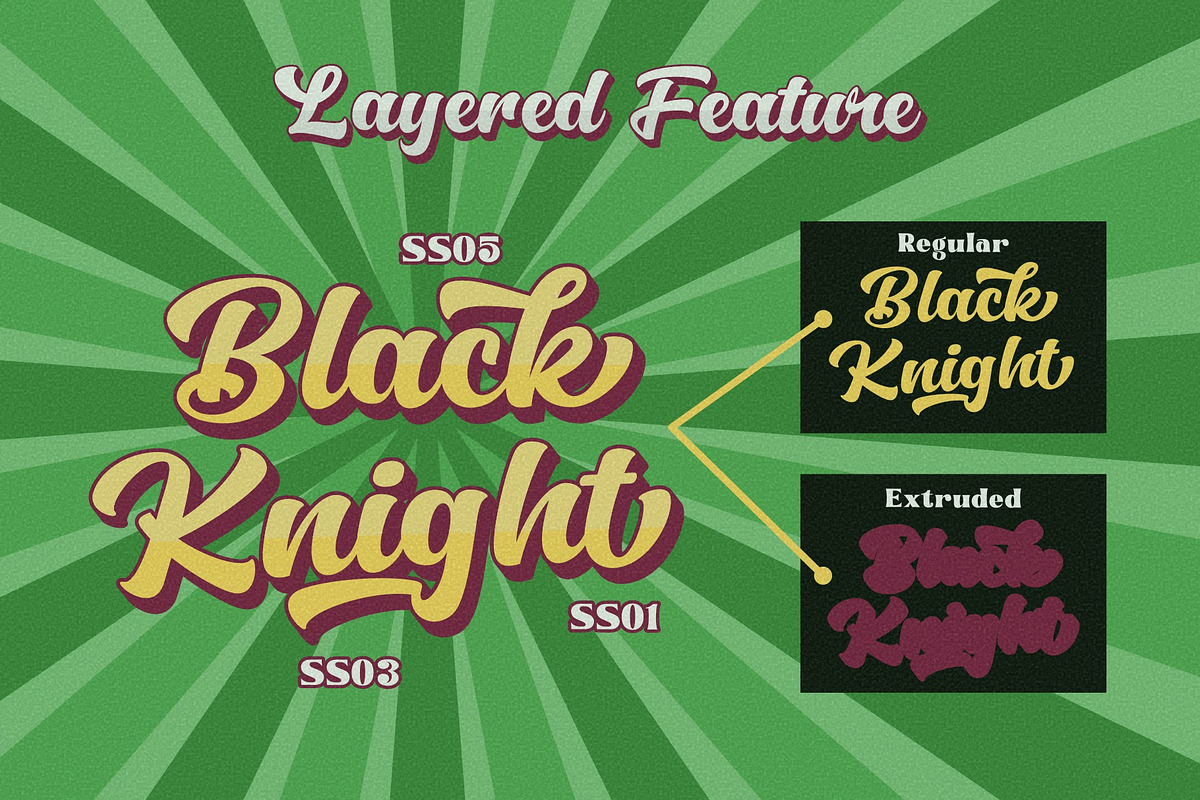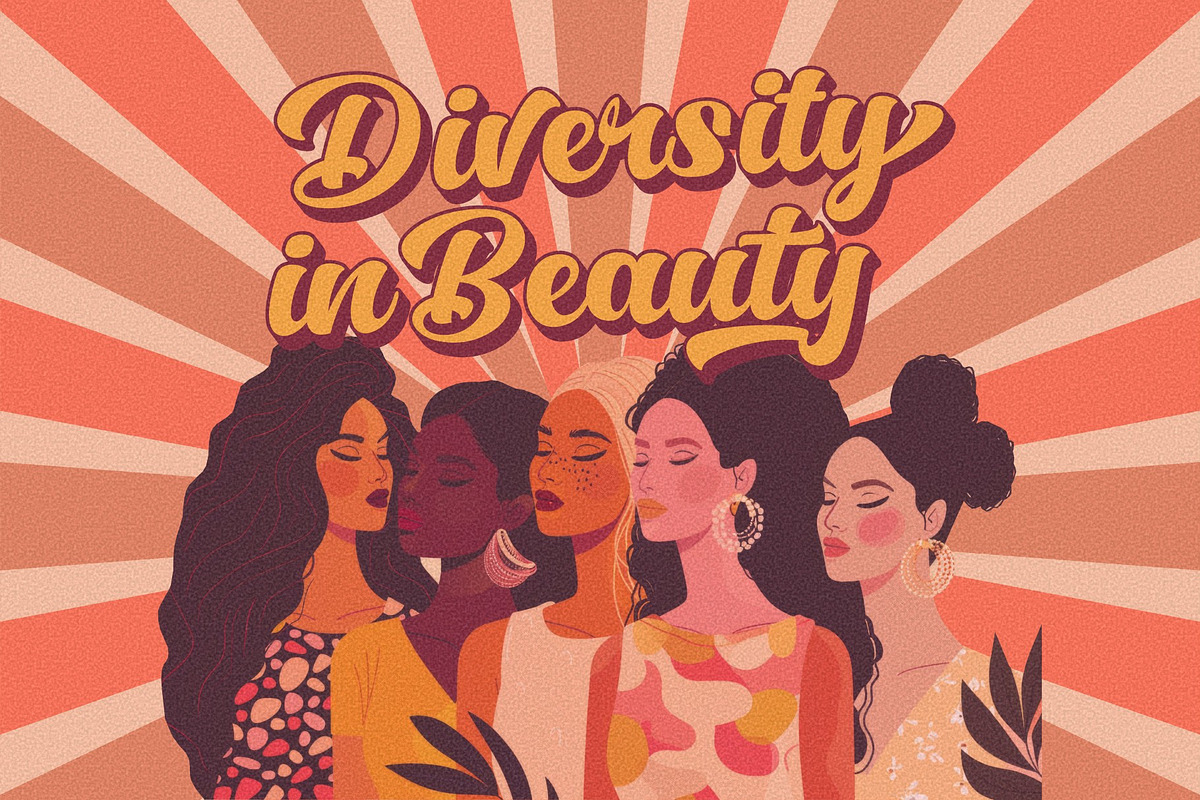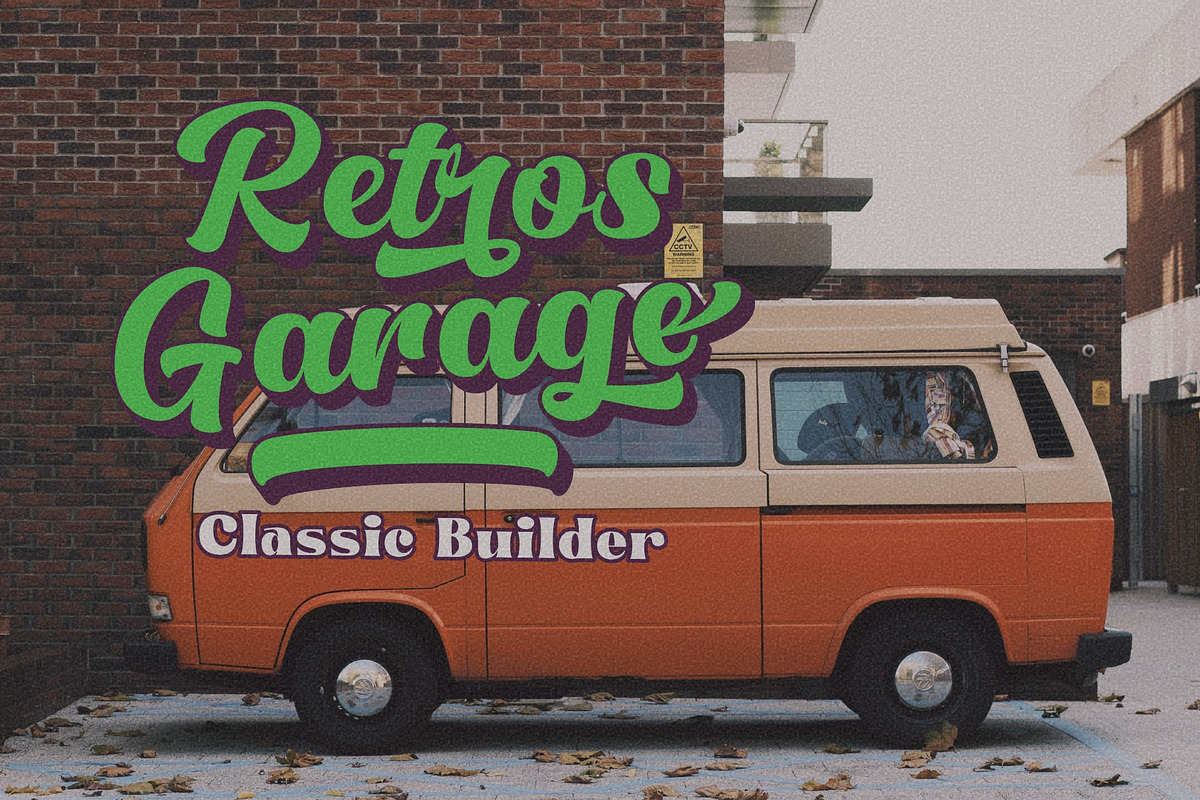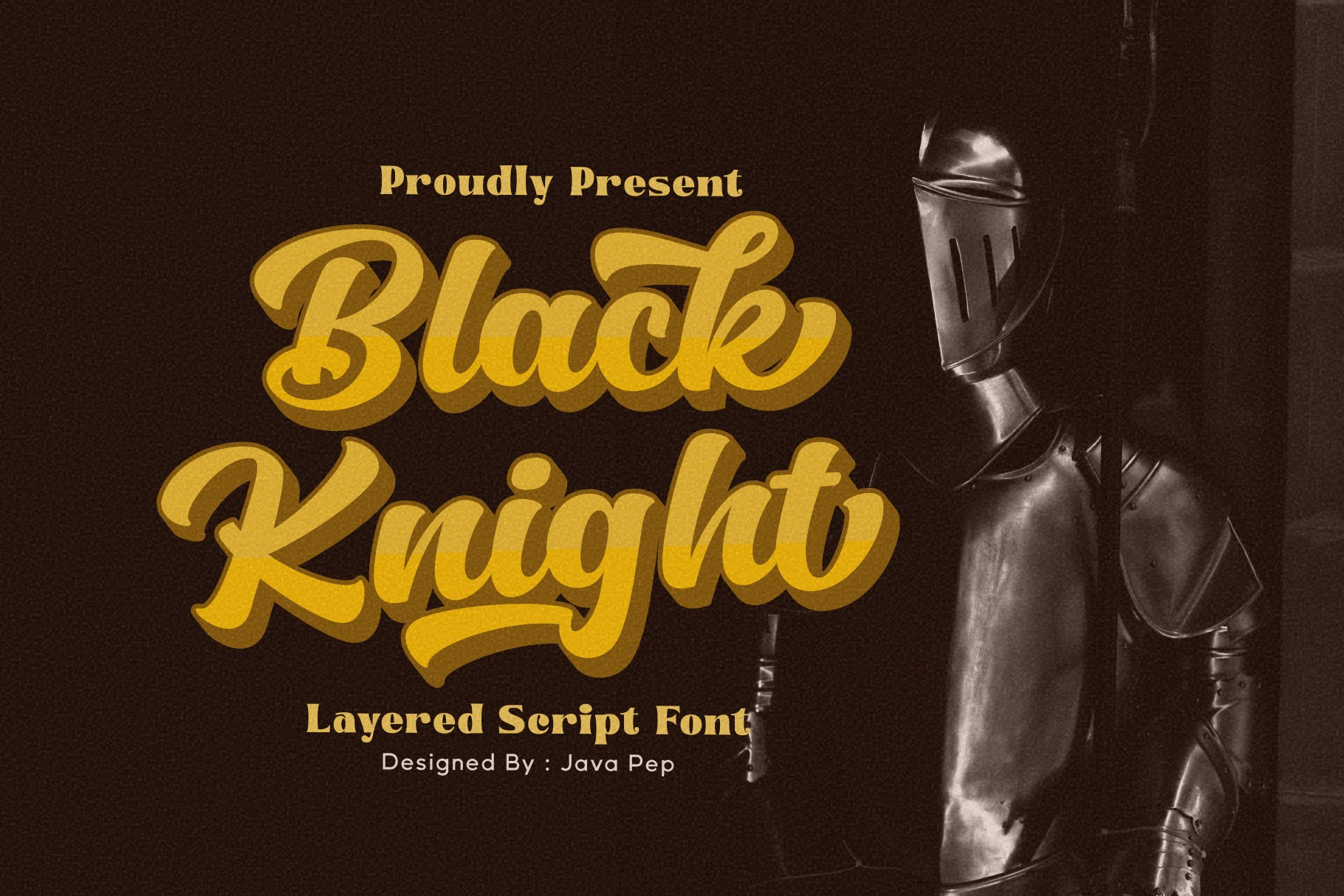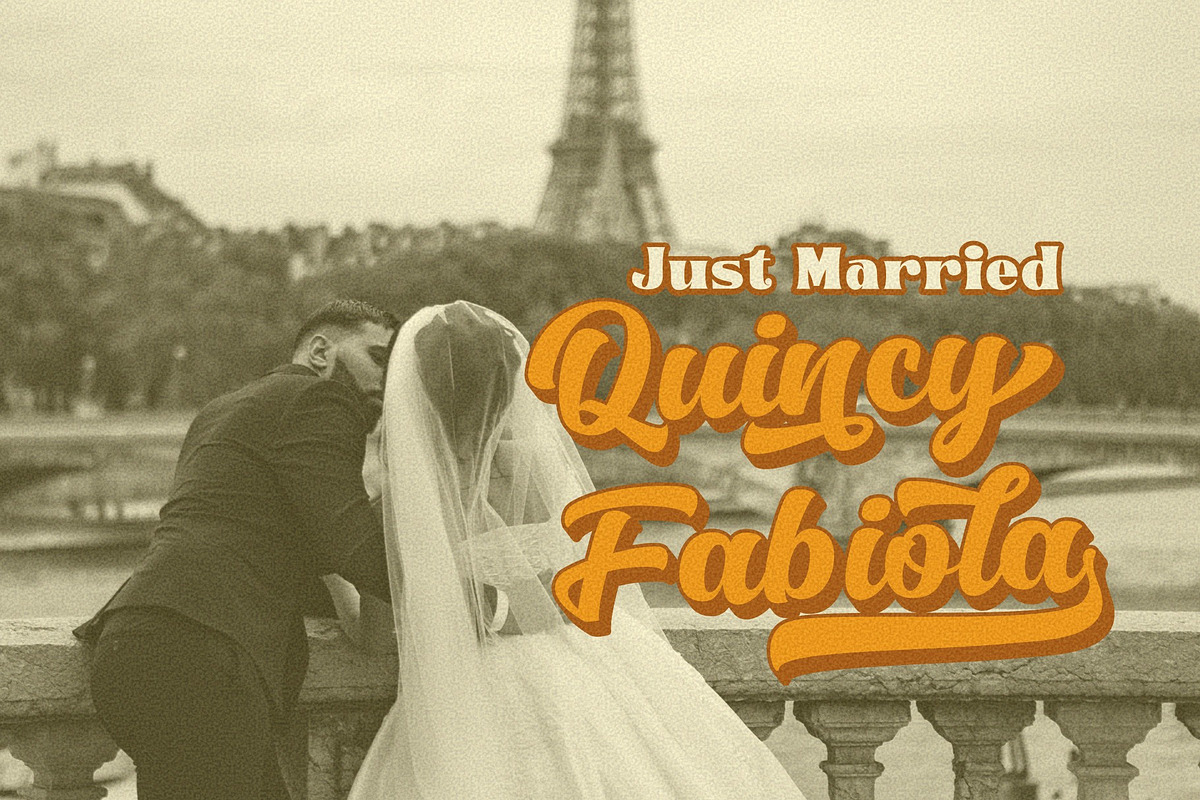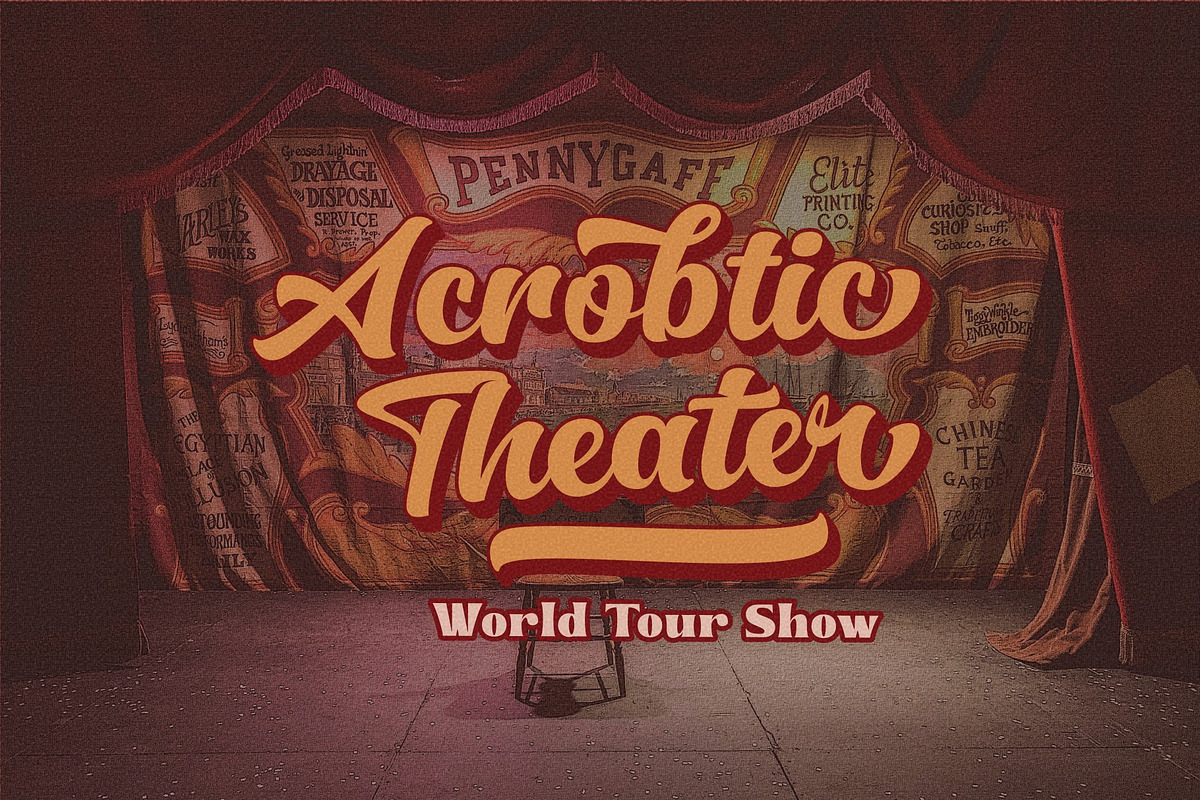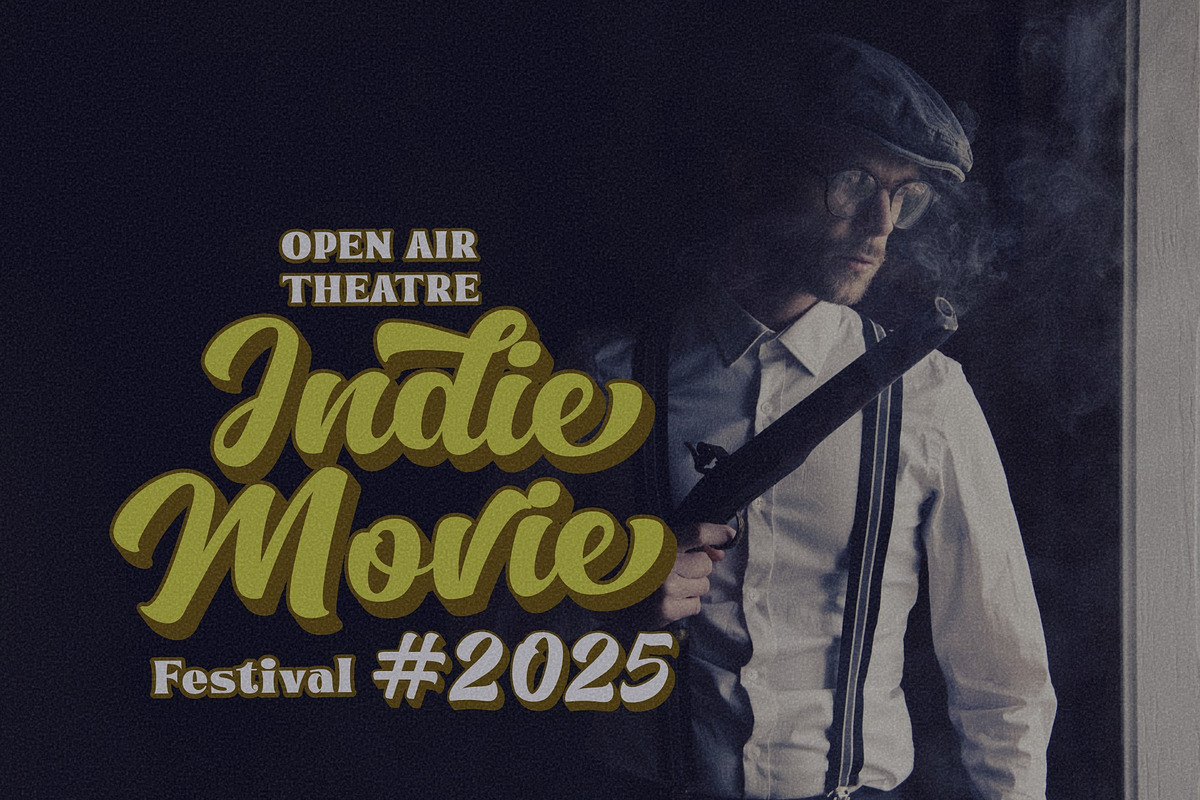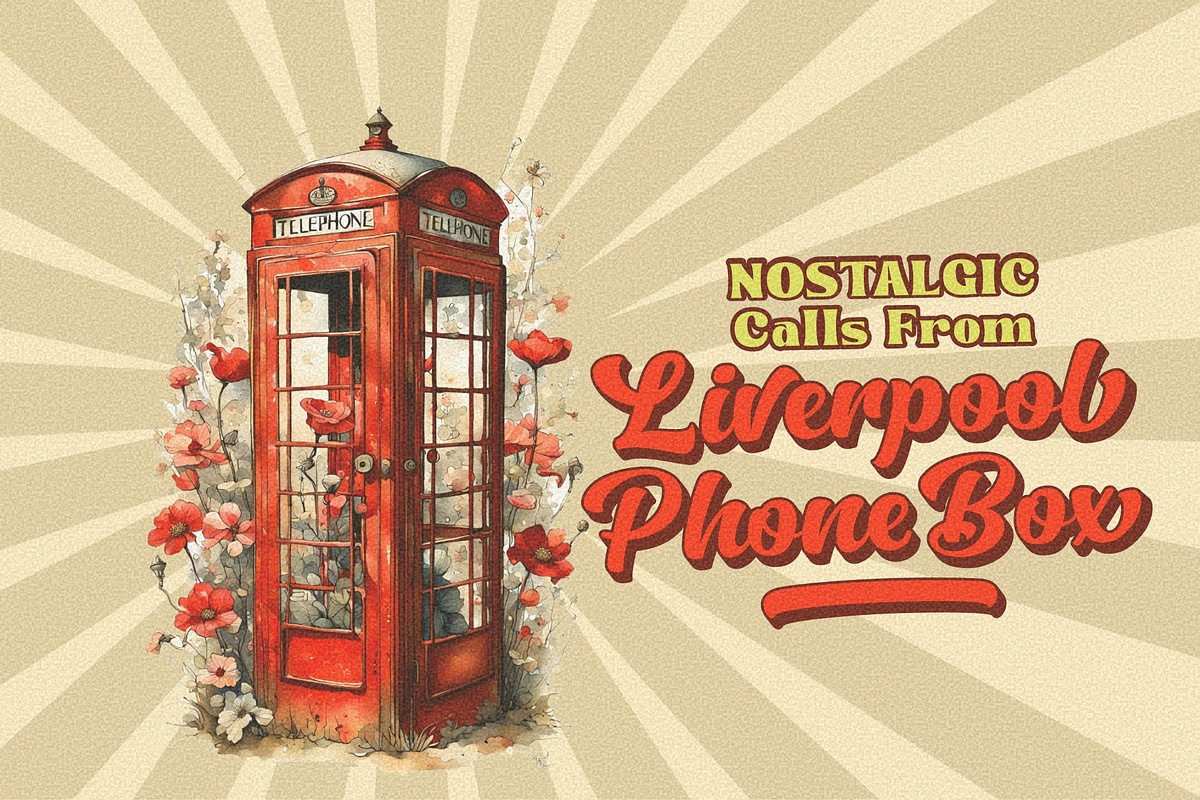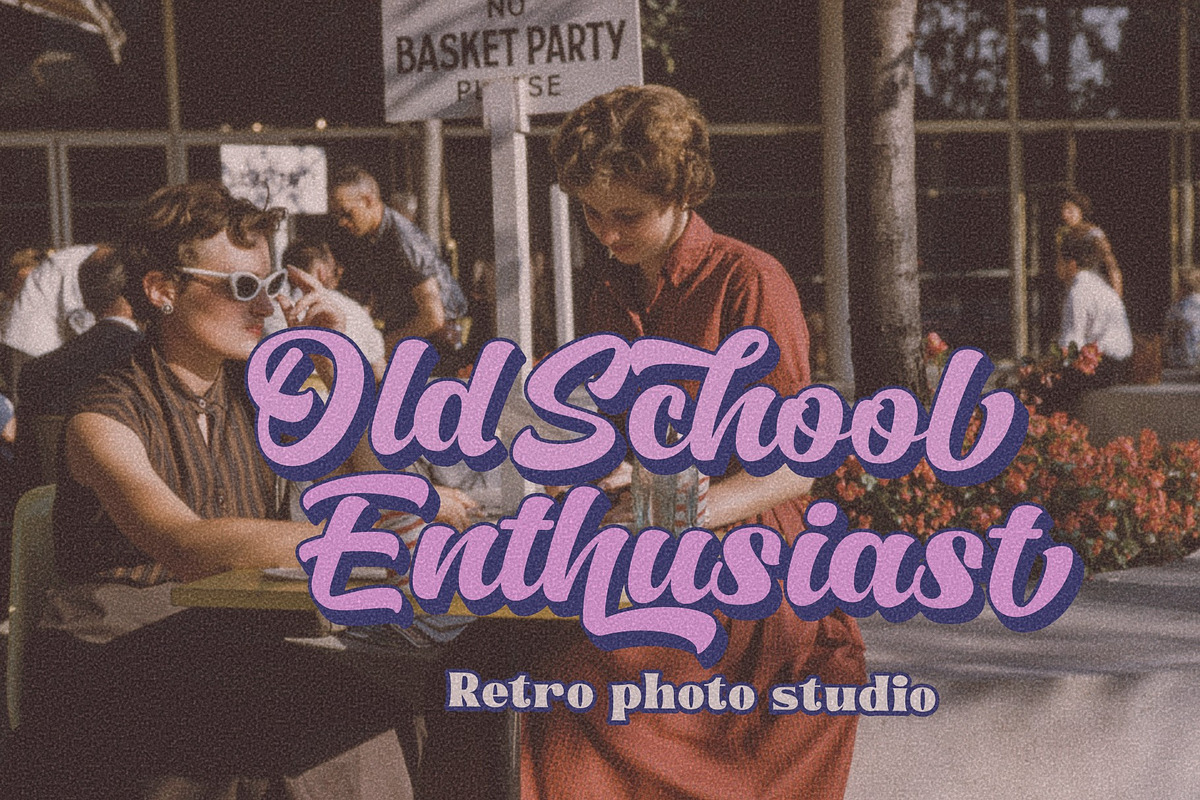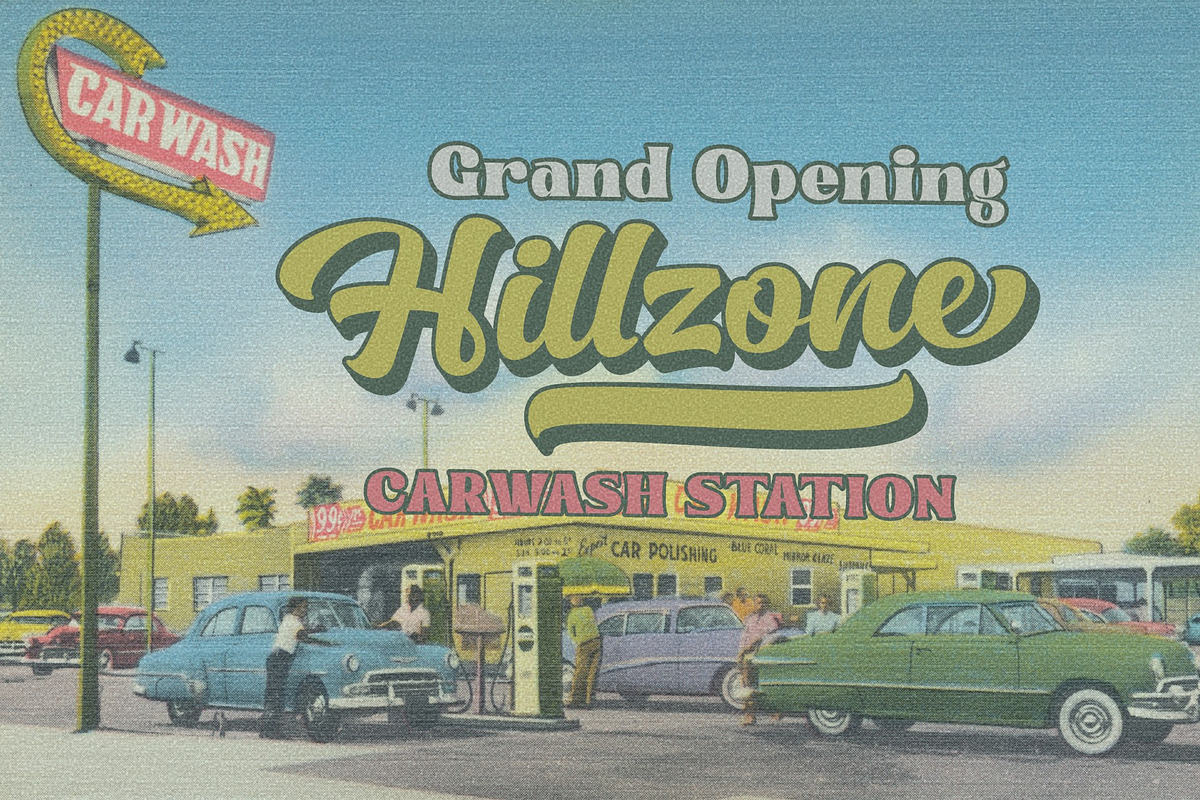
Black Knight / Layered Typeface
Proudly present fresh from the oven, the layered script font called Black Knight Font. For use the layered font the regular font must to placing in front of and extruded font for background This font is designed to emphasize beauty and timelessness, so it can be used on classic, modern, and contemporary themes. Black Knight font comes with lot of alternate glyphs such as alternate, staylistic alternate, dan swash. This font also has multilingual support more than 25 languages.